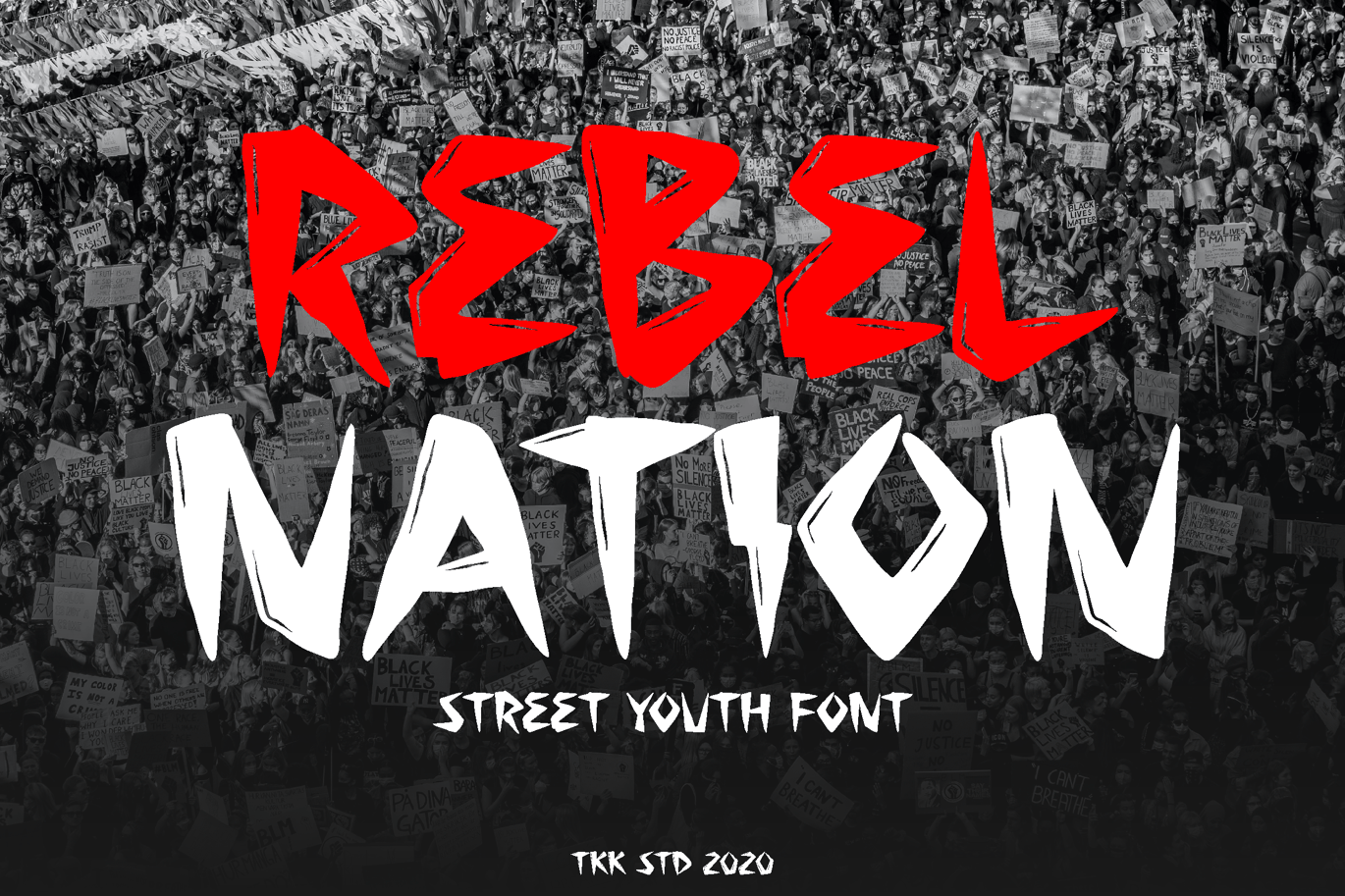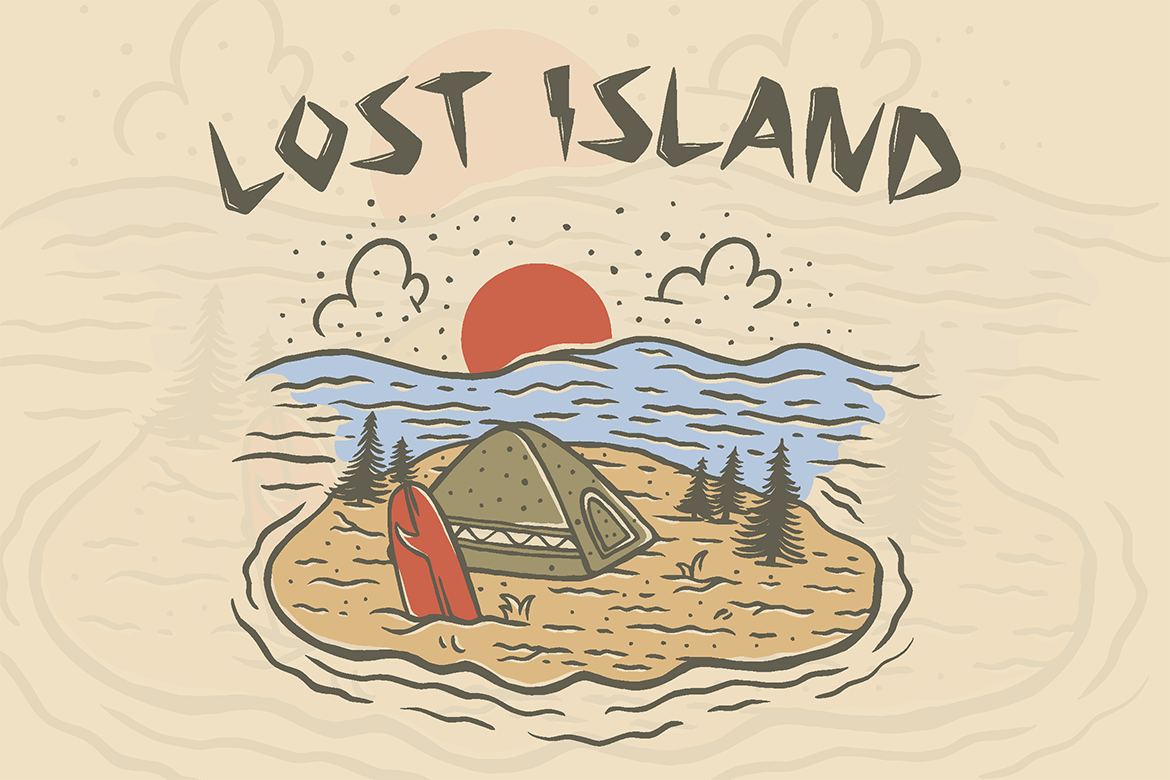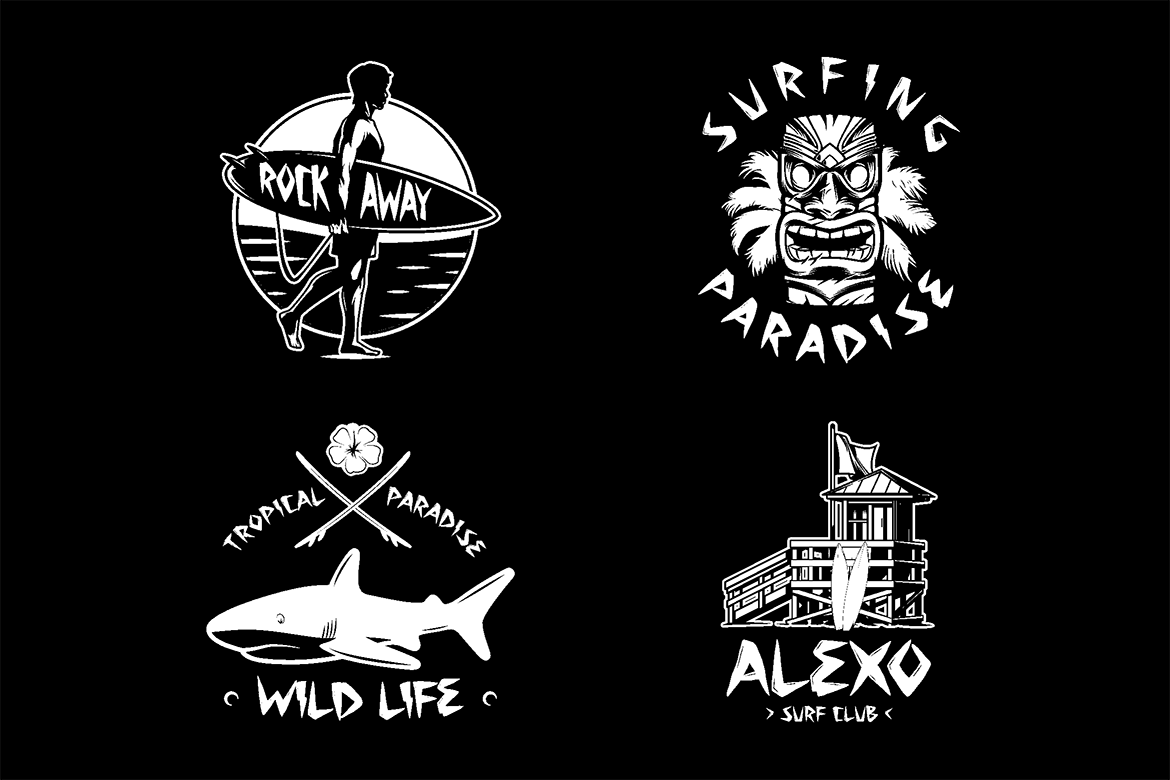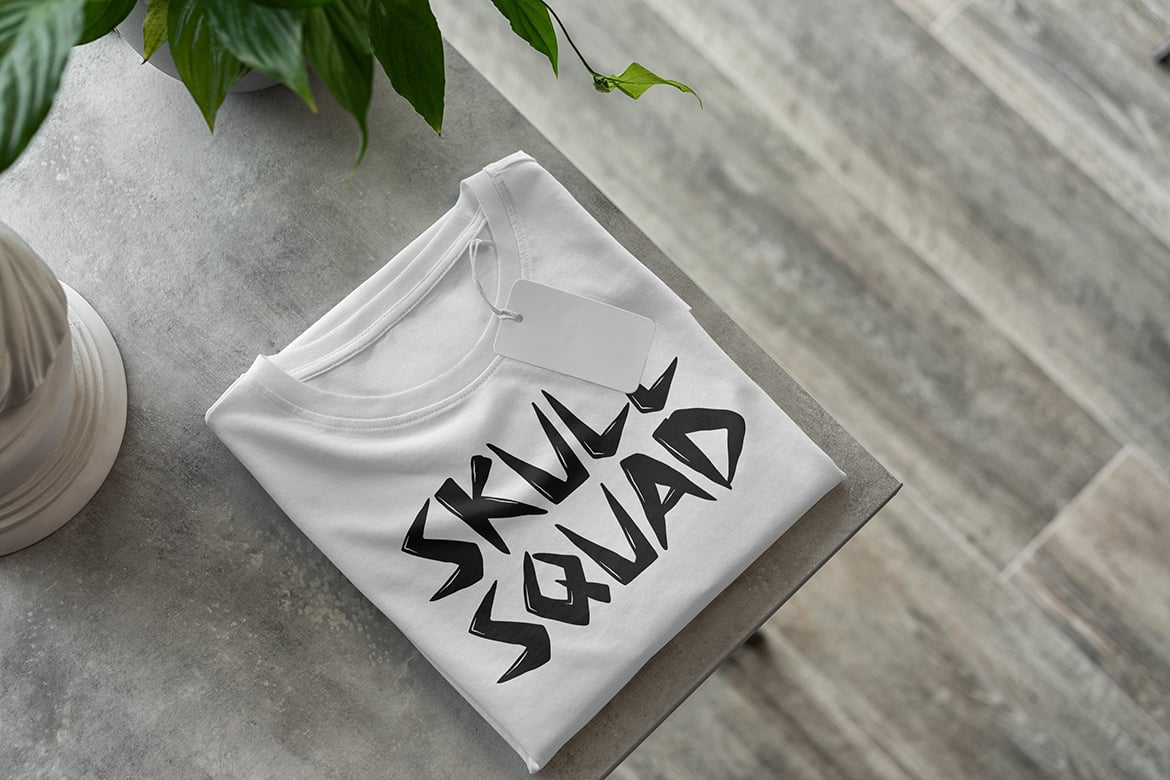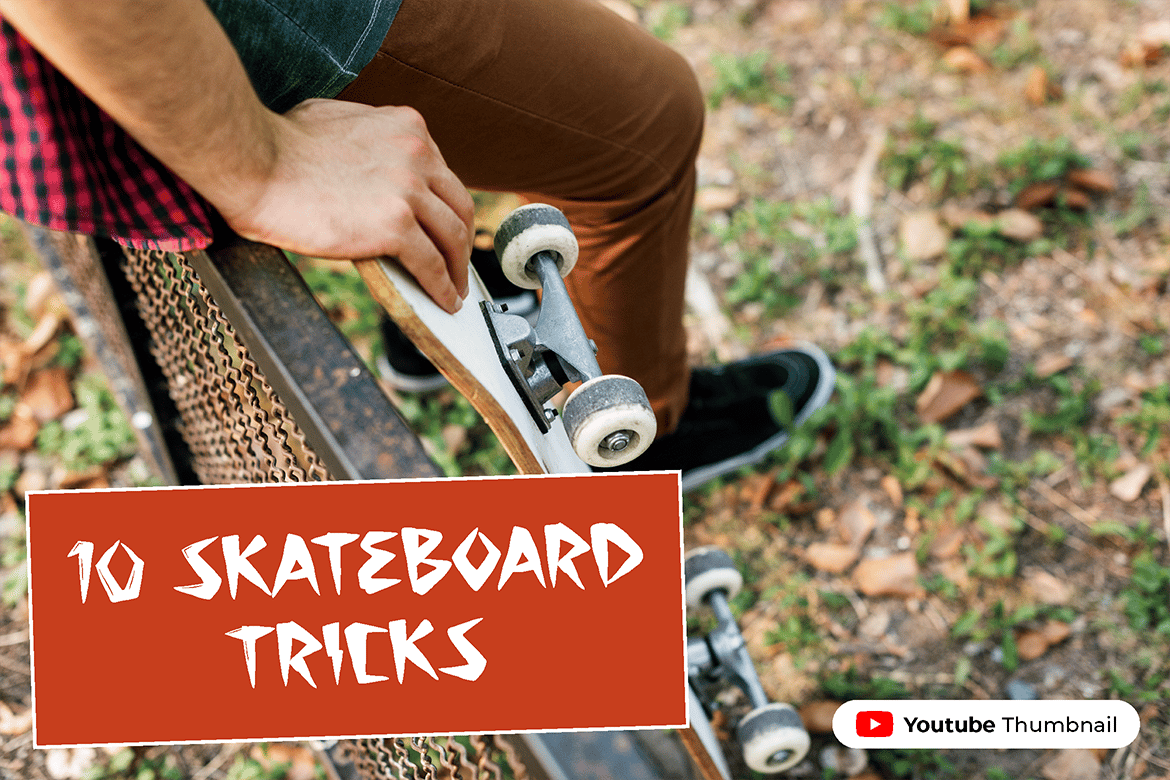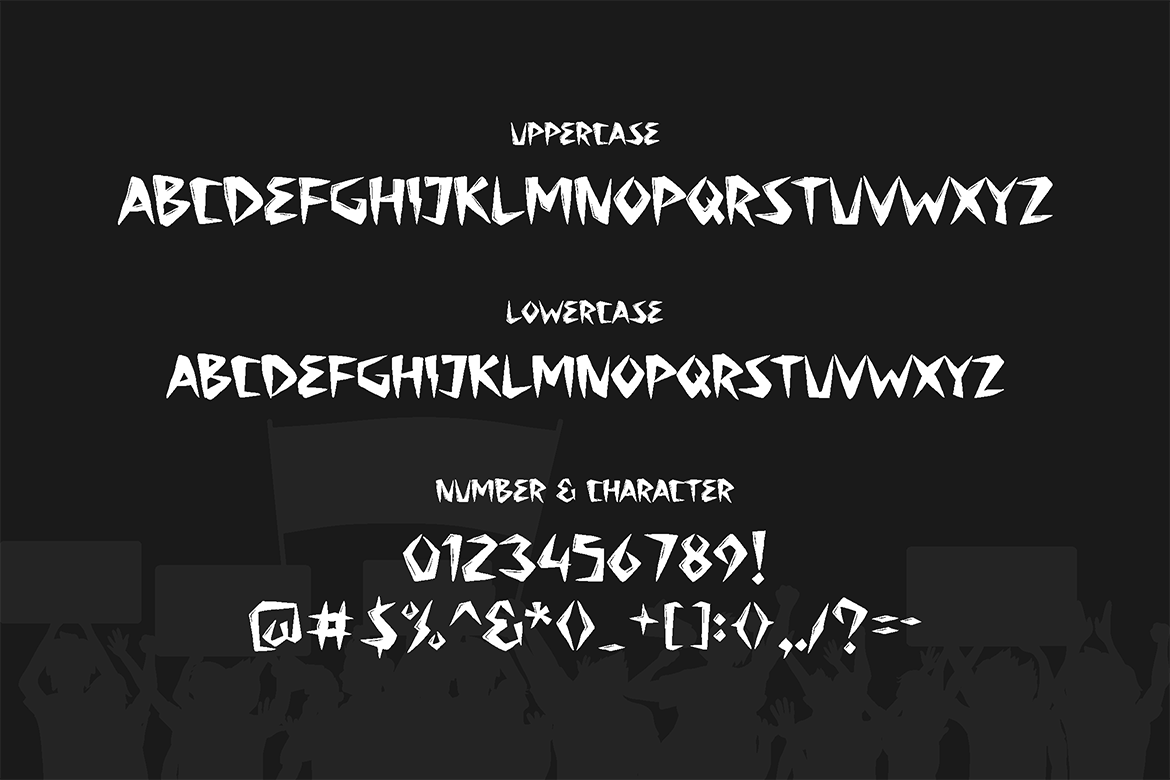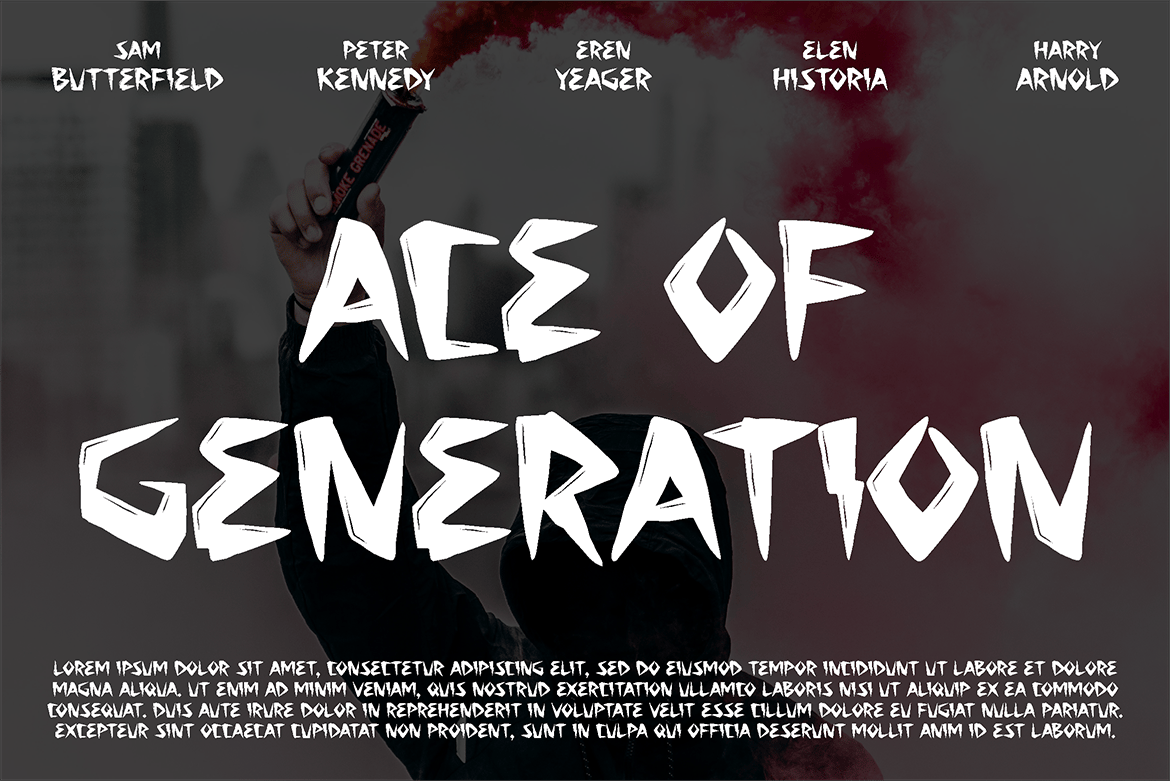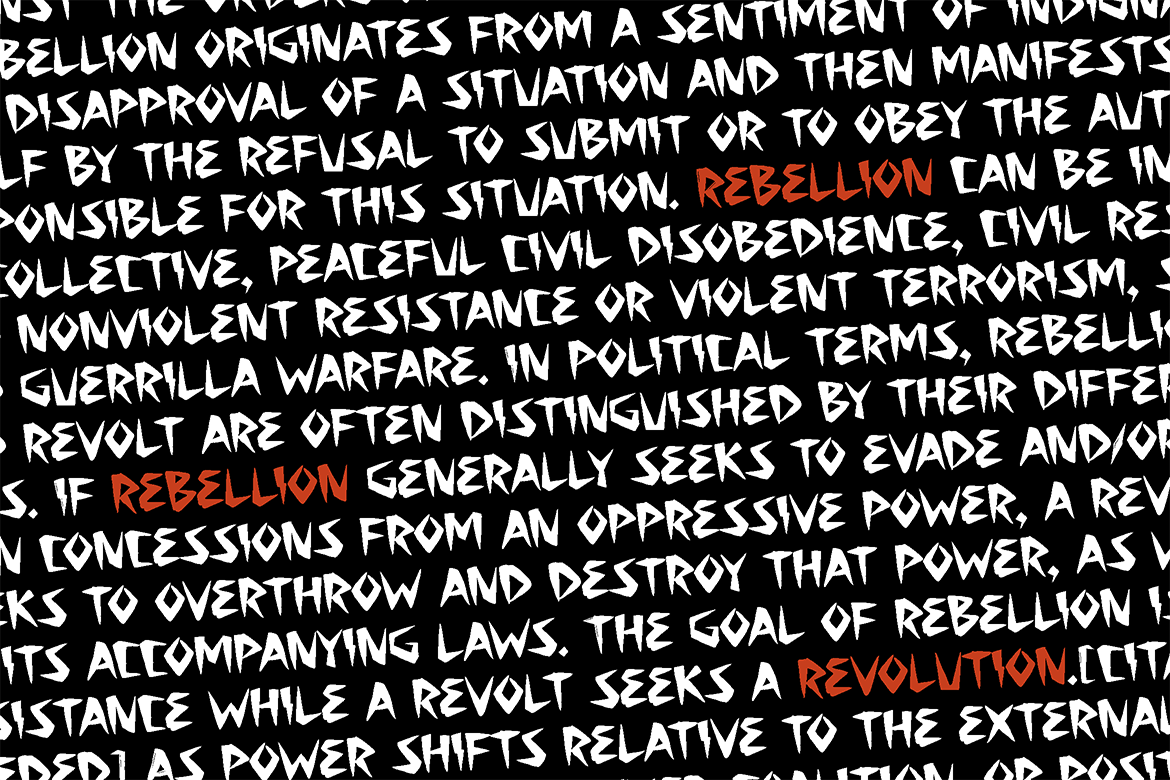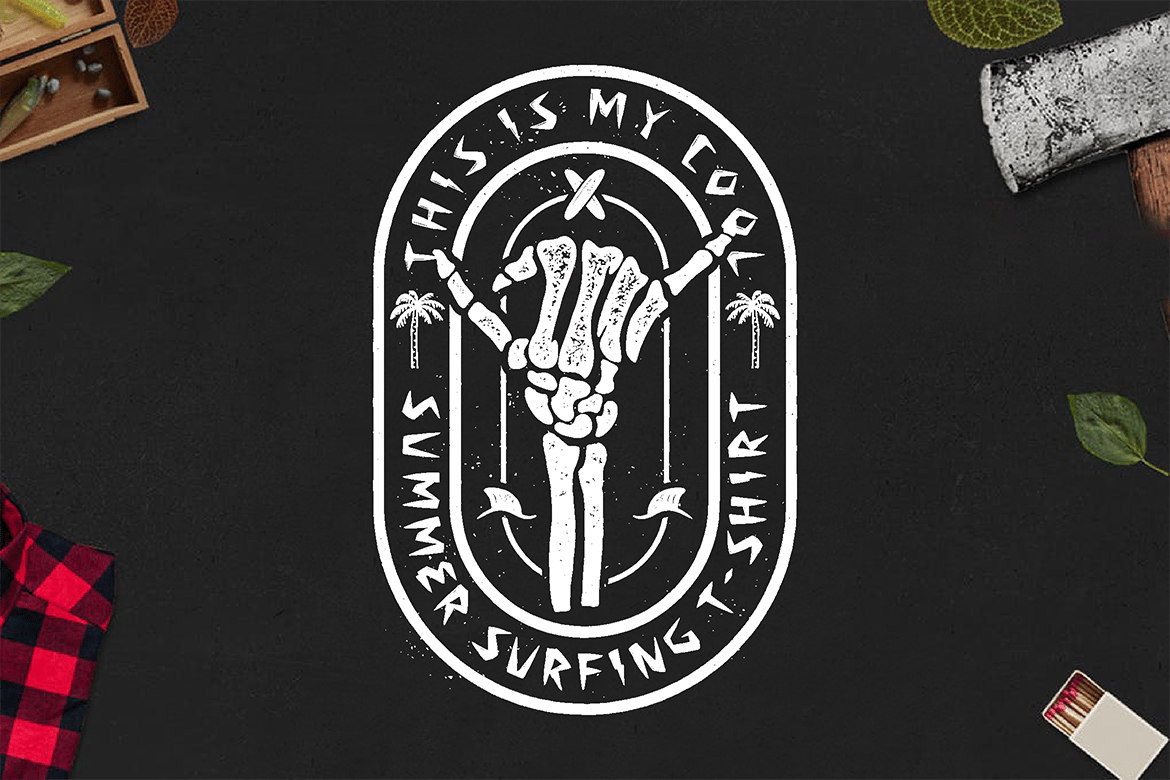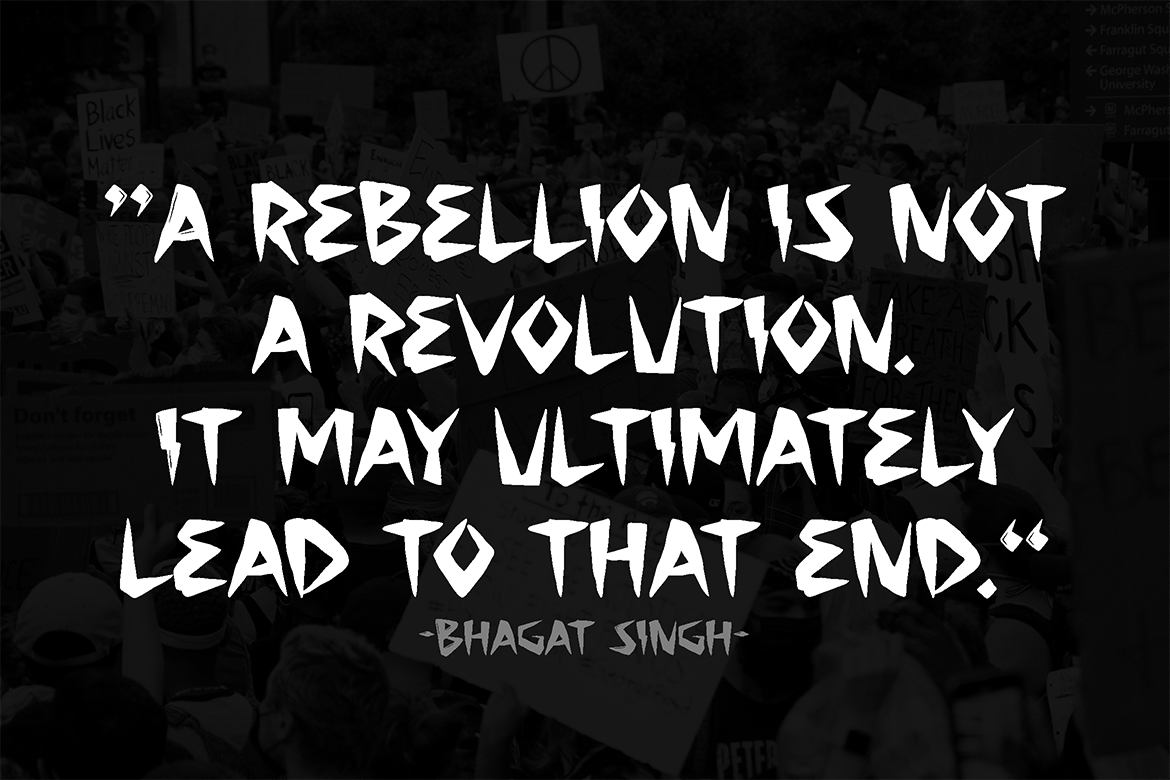
Rebel Nation – Tattoo Graffiti Font
The shape resemblance the aggresiveness and the abundant energy of youth life.
It speak in the strong languages, bursting with rage, and empowering for all teenager and young generation.
The uppercase have an inner gloss effect, while the lowercase is a plain shout shape.
Suit perfectly for Online Games, vintage logo, surfing apparel, beach poster, movie title,street magazine, youtube covers, youtube thumbnails, social media page covers and so on…